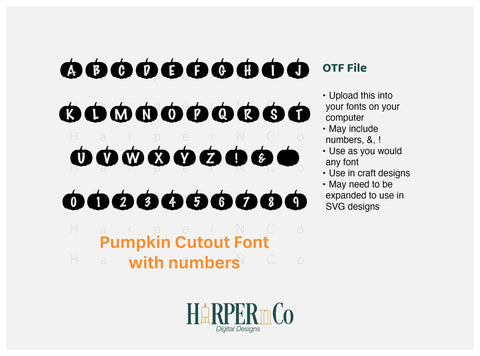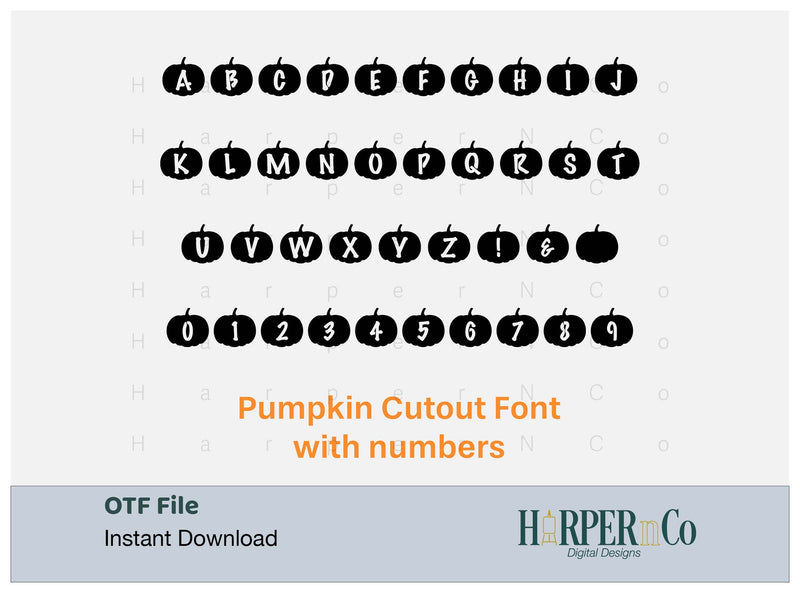
This font will be perfect for all your Craft projects! Use it to make custom shirts, keychains, valentines, tags, bags, and whatever else you can think of!